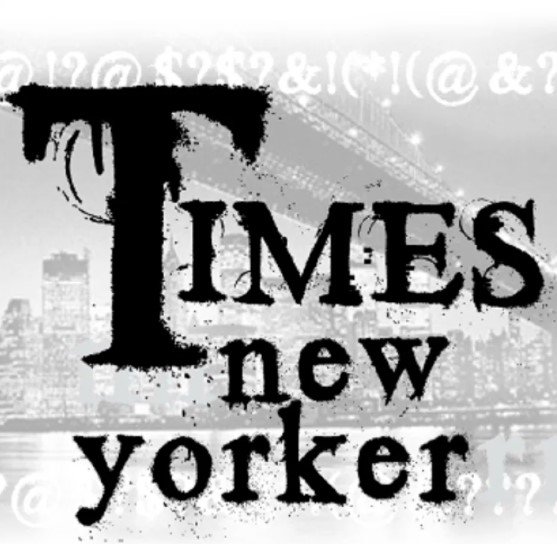
If you’re new to graphic design, Times New Yorker Font is the ideal typeface for you. Designed by D.O.C.S, this font is available for free download.
Also, you can check out the below image to get an experience about all the brilliant designing layouts of this font. This typeface is available in regular and bold styles.
View Of Times New Yorker Font
Now, the time comes to view the sample of great typeface that you can use with the combination of Asterism font. Below, we shared an image that contains the glyphs and characters of this amazing font which creates the best designs in Adobe Photoshop and Adobe Illustrator.
The font contains high legible characters which give your projects a unique look and feel. You can use this great typeface for your typographic projects as well as for making resume designs, covers, posters, and banners. This will work great when you will utilize it as pairing with murray hill font.